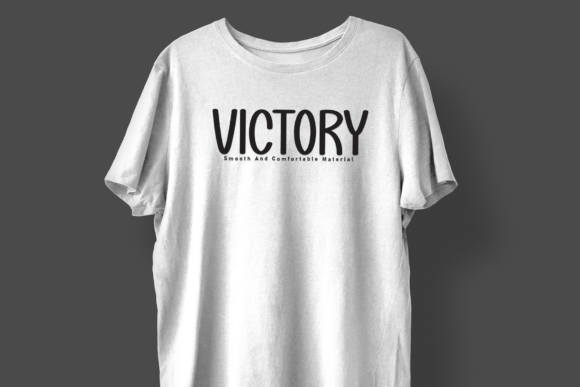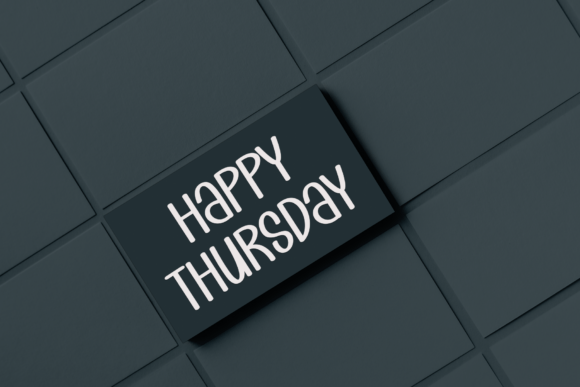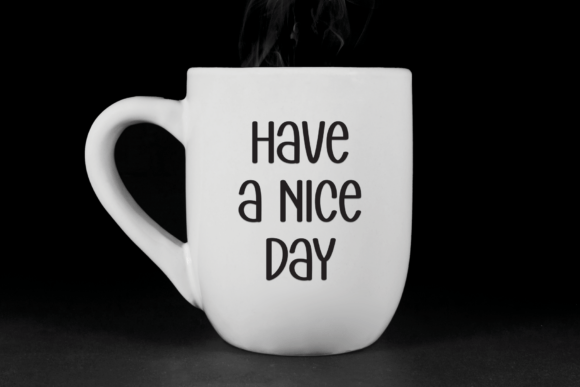
Introduction to Night Haunted Font
Night Haunted is a neat and casual display font that radiates character and fun.
With clean lines and an easygoing vibe, it’s perfect for posters, event flyers, and playful branding This cheerful typeface brings a breezy, laid-back feel to any creative project or message.
Key Features of Night Haunted Font
Why Choose Night Haunted Font?
Night Haunted Font offers exceptional quality and versatility, making it a valuable addition to your design toolkit. Whether you’re creating for personal projects or commercial use, Night Haunted Font delivers professional results.